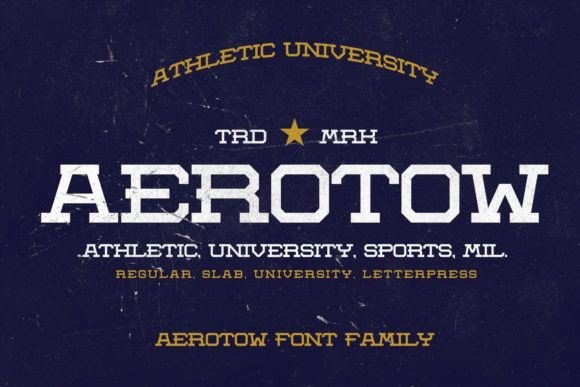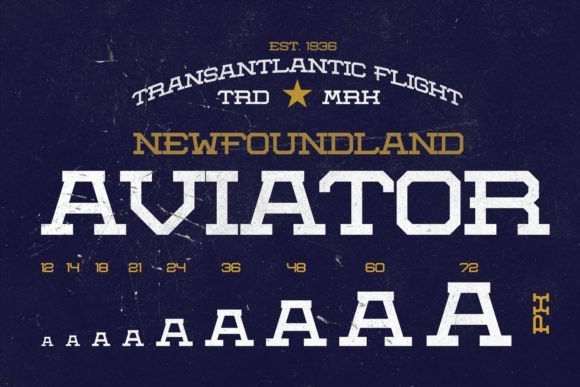
Aerotow: A Handcrafted Vintage Slab Serif Font
Aerotow is a handcrafted vintage, letterpress, and slab serif font. It draws inspiration from university sports, retro posters, magazines, postcards, and ads from the 70’s to the ’90s. This memorable typeface is ideal for display text, print, user interfaces, mobile devices, web design, and posters, offering a set of optimal characters for your design in any layout.
Key Features of Aerotow
- Vintage Design: Captures the essence of retro aesthetics from the 70’s to 90’s.
- Slab Serif Structure: Features distinctive thick, block-like serifs typical of slab serif fonts[3].
- Handcrafted Look: Brings a unique, personal touch to designs.
- Versatile Application: Suitable for various design projects across different media.
Ideal Uses for Aerotow
Aerotow’s unique characteristics make it particularly well-suited for:
- Eye-catching display text
- Retro-inspired print materials
- Distinctive user interfaces
- Mobile app designs
- Vintage-style web design
- Nostalgic poster creations
- University sports branding
When incorporating Aerotow into your designs, consider these tips:
- Use for headlines or short phrases to showcase its vintage slab serif style.
- Experiment with different sizes to highlight the font’s handcrafted features.
- Consider pairing with simpler sans-serif fonts for body text to create contrast.
- Utilize its versatility across various media to create cohesive retro-inspired designs.
In conclusion, Aerotow is an excellent choice for designers looking to add a handcrafted vintage slab serif font to their toolkit. Its ability to evoke nostalgia while remaining versatile makes it stand out in the world of typography. Whether you’re working on print materials, creating user interfaces, or developing content for web and mobile, Aerotow offers the perfect blend of retro charm and modern usability.
Furthermore, Aerotow’s unique design allows it to shine in various contexts where a vintage look is desired. From university sports branding to nostalgic poster designs, this font can elevate your projects with its distinctive style. Its handcrafted appearance works particularly well in designs that aim to make a strong visual impact while maintaining a touch of authenticity.
To sum up, Aerotow truly captures the essence of vintage design in slab serif typography. Its versatility across different applications showcases its adaptability to various creative needs. For those looking to add a touch of retro charm to their work, Aerotow can enhance themed creations with its unique style. It’s the ideal choice for designers seeking to make a memorable, nostalgic impact across a wide range of creative projects.